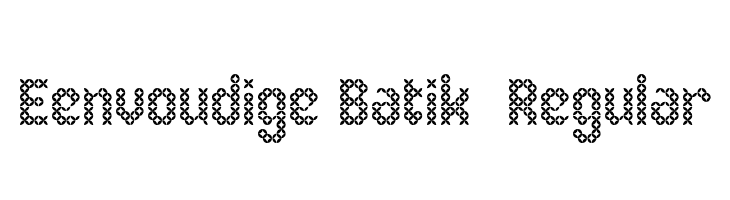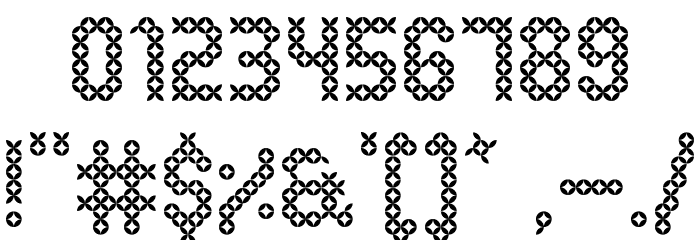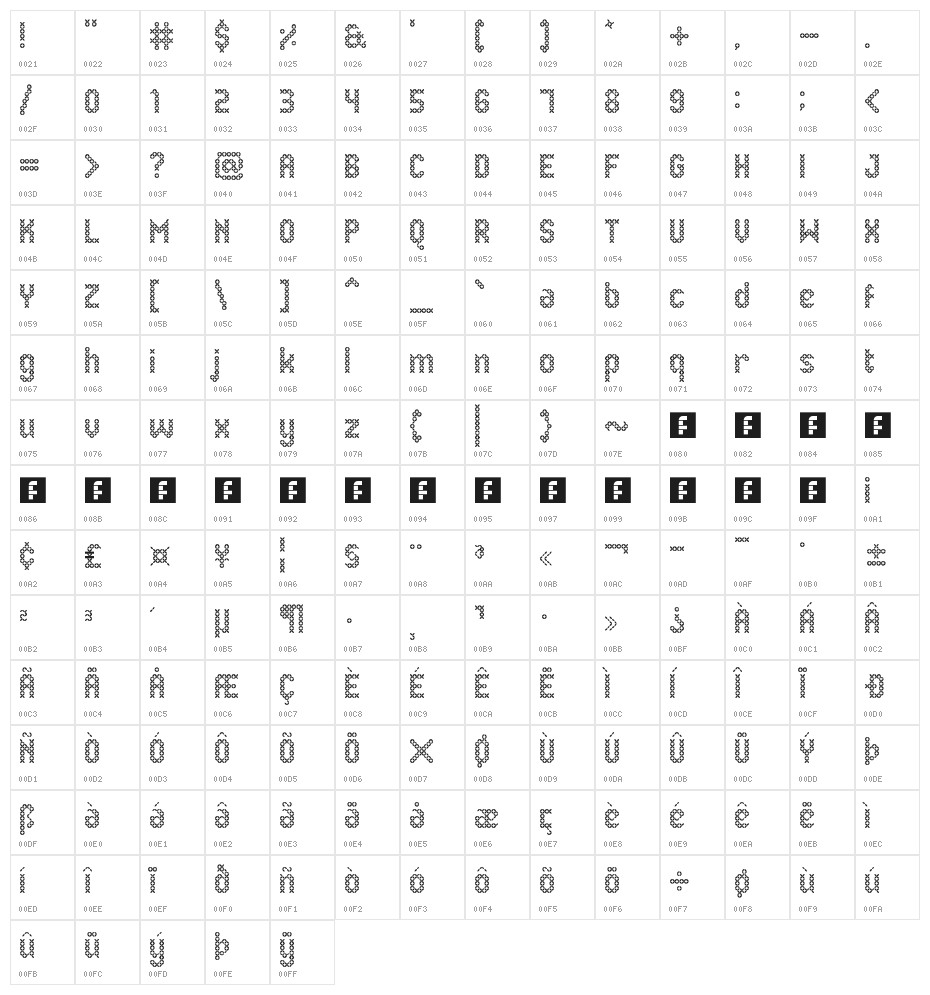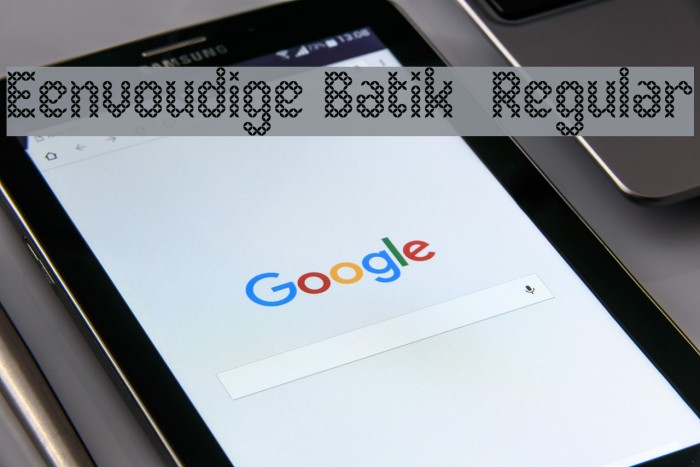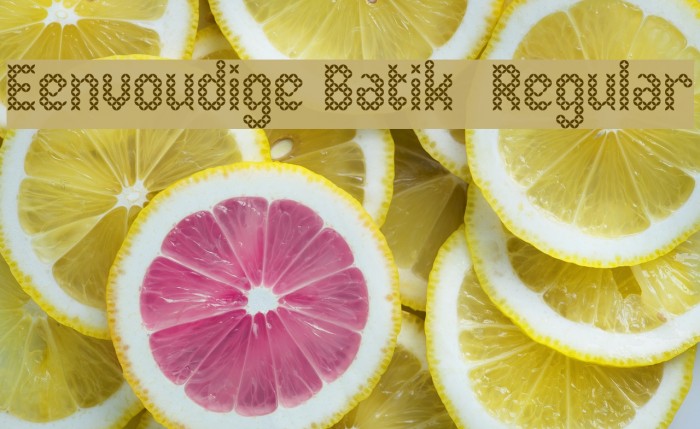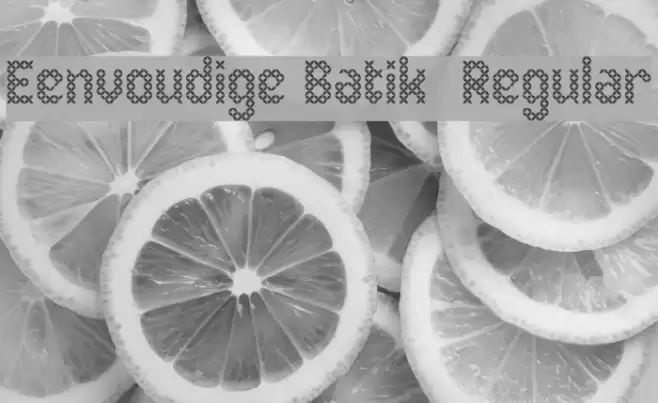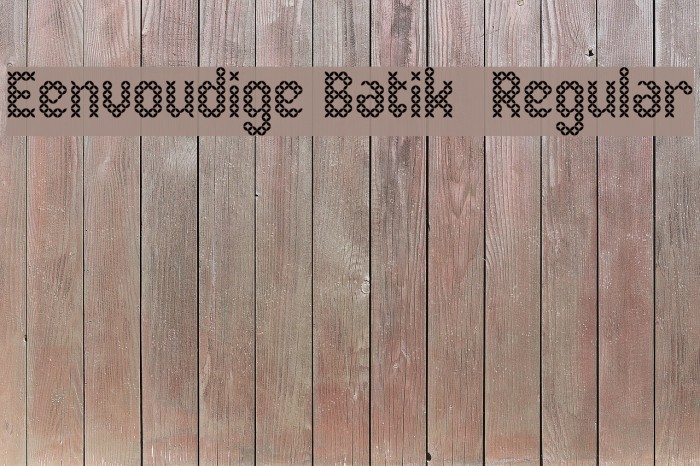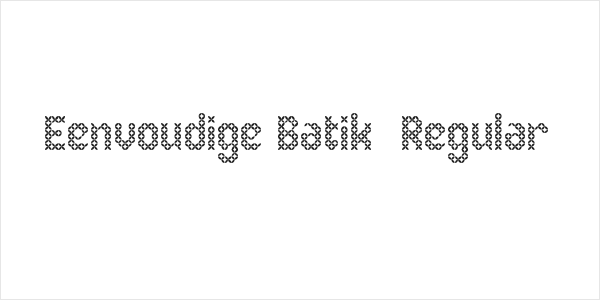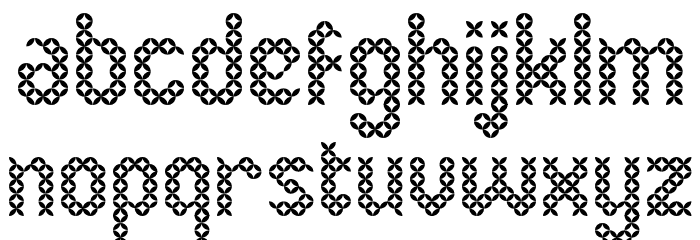
Eenvoudige Batik Regular Font
Eenvoudige Batik Regular Description
This font features a unique and intricate design, reminiscent of traditional batik patterns. Each character is composed of interlocking loops and curves, creating a textured and decorative appearance. The uppercase and lowercase letters maintain a consistent style, with rounded edges and a uniform thickness throughout. Numbers and special characters follow the same design principles, ensuring a cohesive look. The font's ornamental nature makes it stand out, offering a distinct visual appeal that is both artistic and culturally inspired.